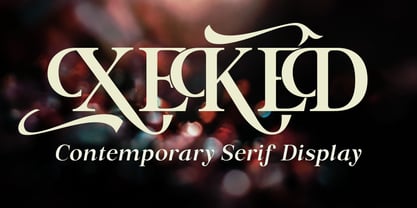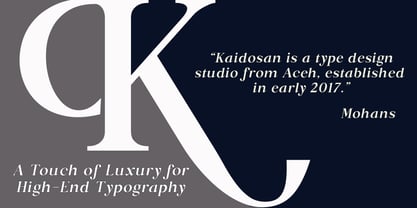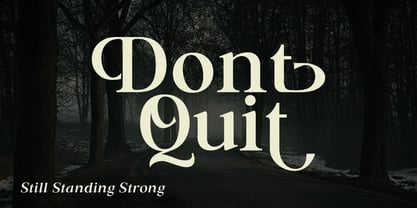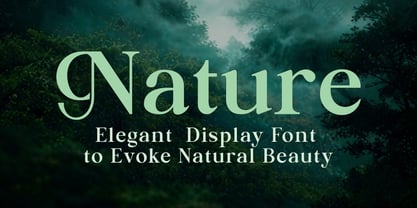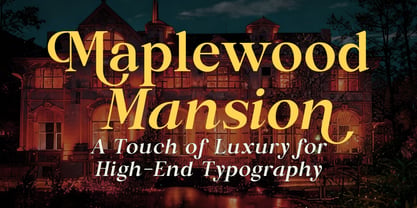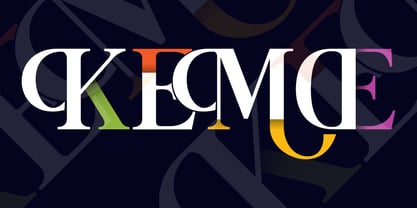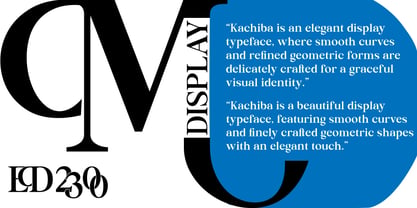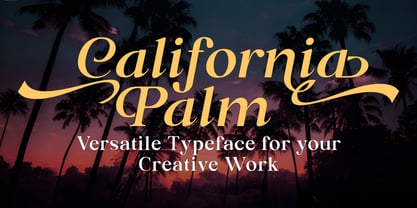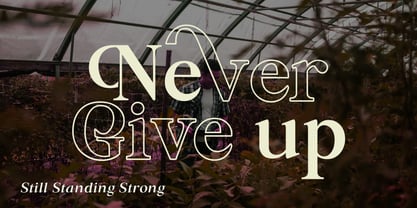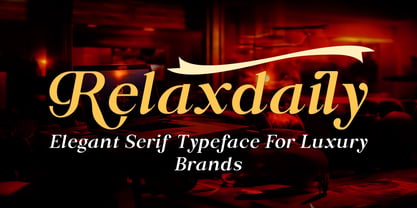
Kachiba
La famille de polices Kachiba a été conçue par Muhammad Ansari et publiée par Kaidosan. Kachiba contient 7 styles et options de package familial. En savoir plus sur cette famille
Kachiba is an elegant serif display typeface created for designers who seek luxury, clarity, and artistic expression. Its refined curves, graceful contrast, and balanced geometry make Kachiba perfect for high-end branding, editorial headlines, logos, packaging, and fashion design. With 7 distinctive styles — Regular, Italic, Condensed, Expanded, Outline, Shadow, and Extra Line — Kachiba offers exceptional flexibility for bold, layered, and expressive typography compositions. Kachiba blends timeless elegance with modern display aesthetics, making every design look premium, confident, and unforgettable.